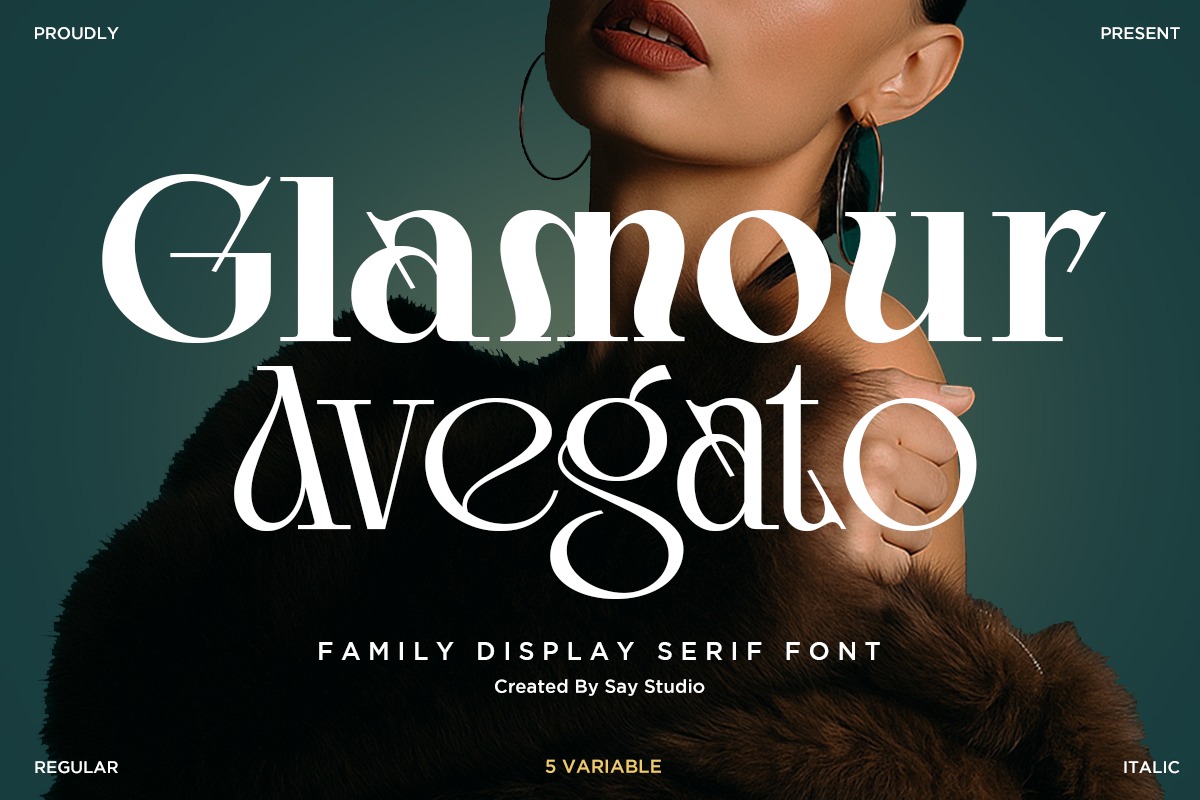
Glamour Avegato – Elegant Serif Font
Glamour Avegato – Elegant Serif Font brings a balanced structure and contemporary look, making it suitable for both digital and print design. Glamour Avegato is an elegant display serif font family that combines timeless sophistication with contemporary refinement. Designed with graceful curves, distinctive high-contrast strokes, and beautifully crafted details, this typeface creates an unforgettable visual presence for premium design projects. Available as a variable font family, Glamour Avegato offers exceptional flexibility while preserving its refined and expressive character across every weight.